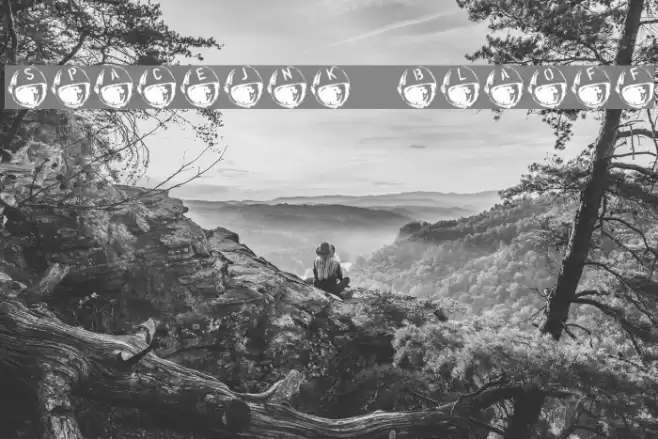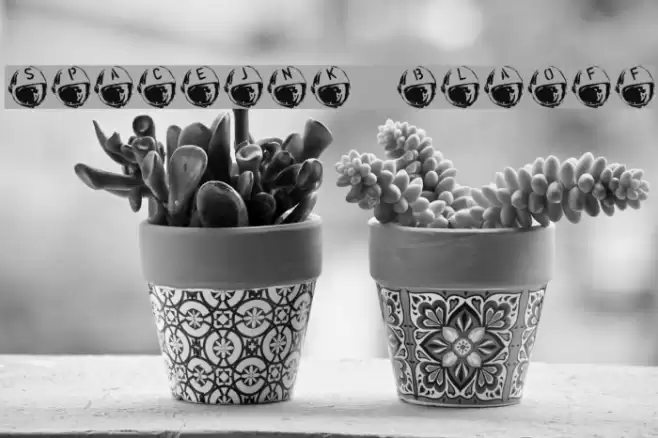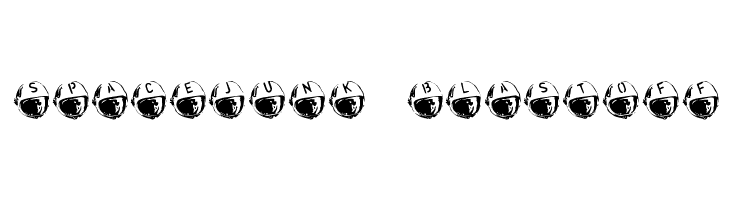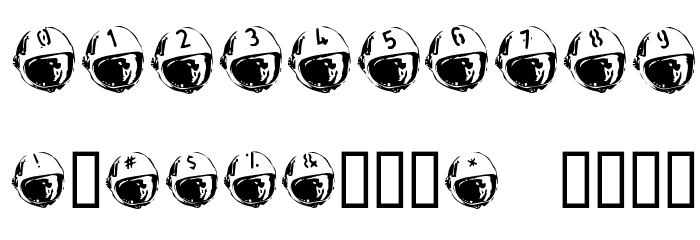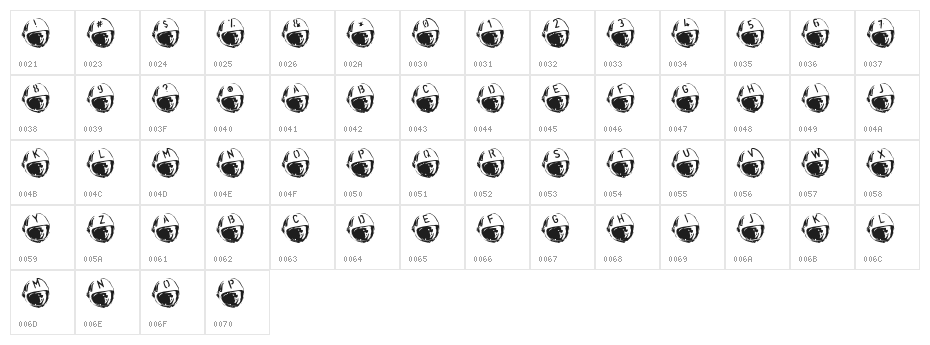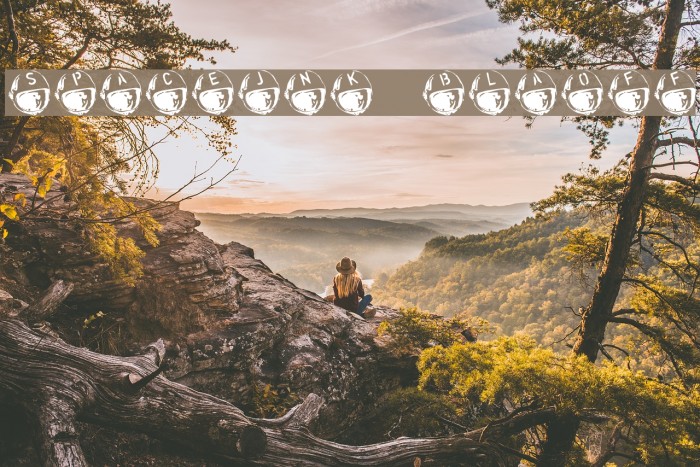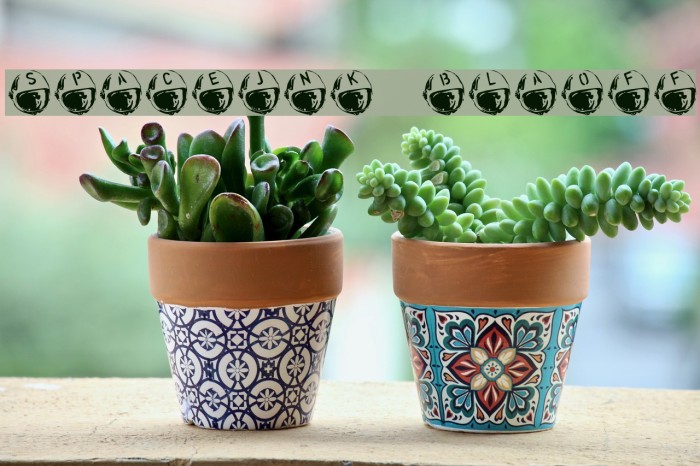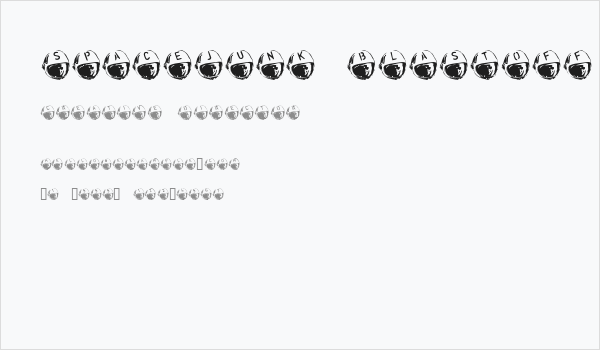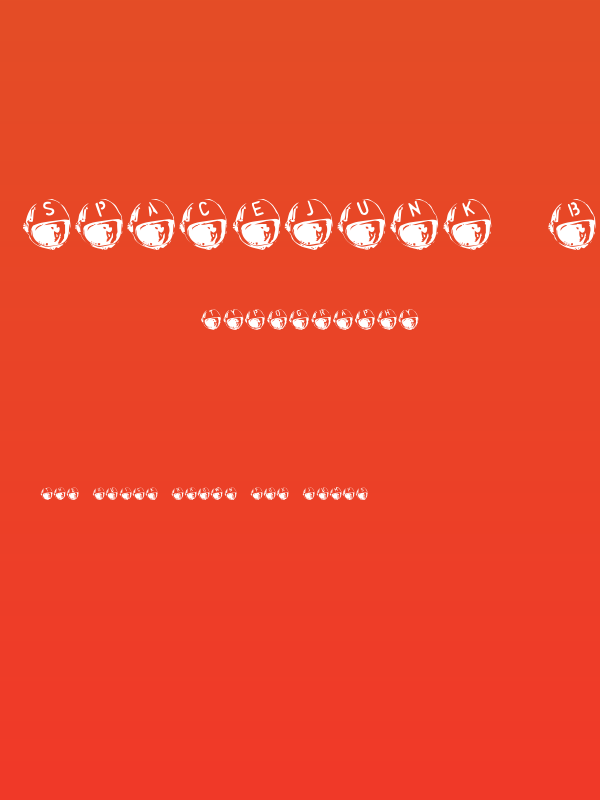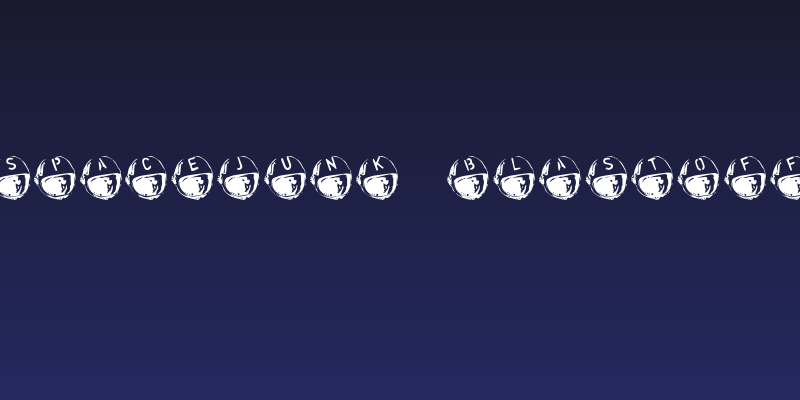
SpaceJunk BlastOff Font
SpaceJunk BlastOff Description
This font features a unique and playful design where each character is encapsulated within a stylized astronaut helmet. The bold, black outlines and filled interiors create a strong visual impact, making it ideal for attention-grabbing designs. The characters are consistent in their circular shape, providing a uniform appearance across the alphabet, numbers, and special characters. The font's space-themed aesthetic is both fun and imaginative, perfect for projects that require a touch of whimsy and creativity. The design maintains legibility while offering a distinct style that stands out.
A playful, space-themed font with characters inside astronaut helmets from Uncategorized fonts.